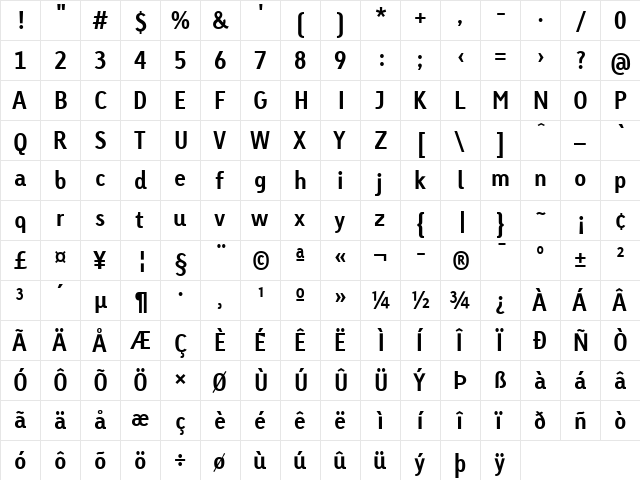
LTTetria BoldTab Regular
Design Context for LTTetria BoldTab Typeface
LTTetria BoldTab offers clean, dependable letterforms without strong stylistic allegiance, making it a practical choice for designers who need flexibility. Its bold stroke weight gives it real presence on the page.